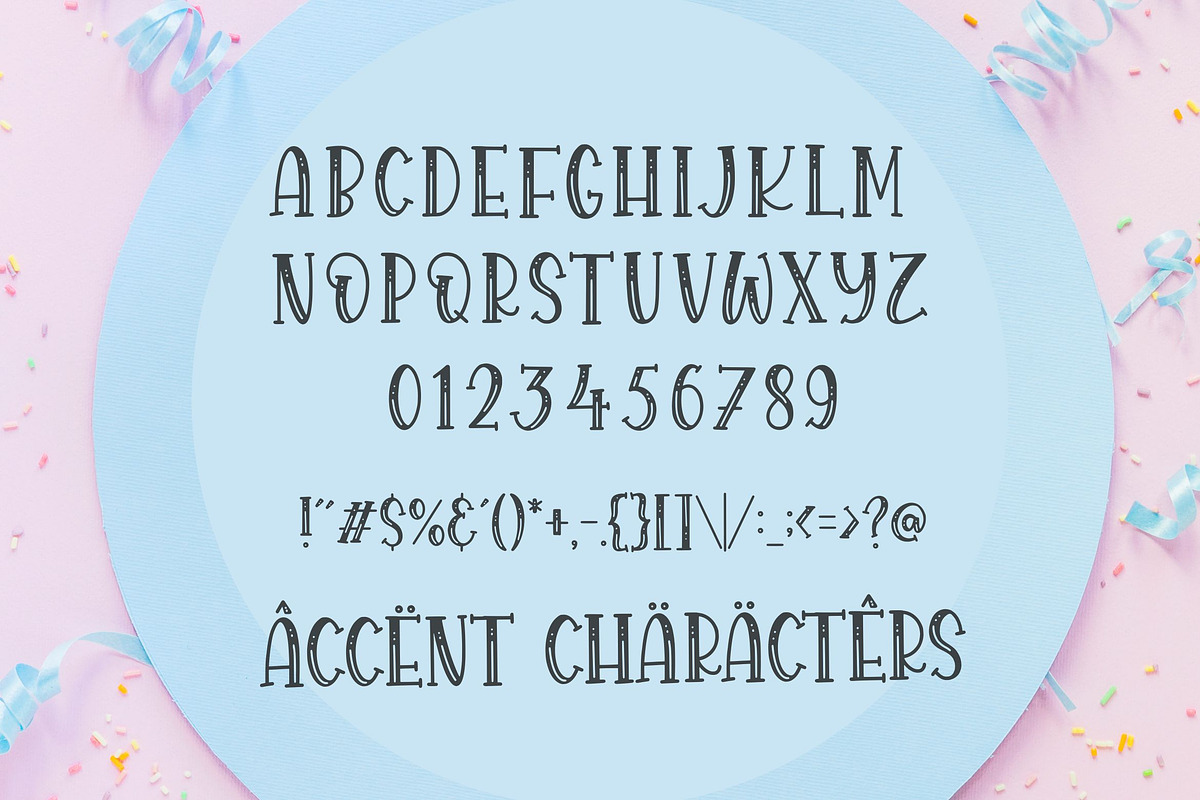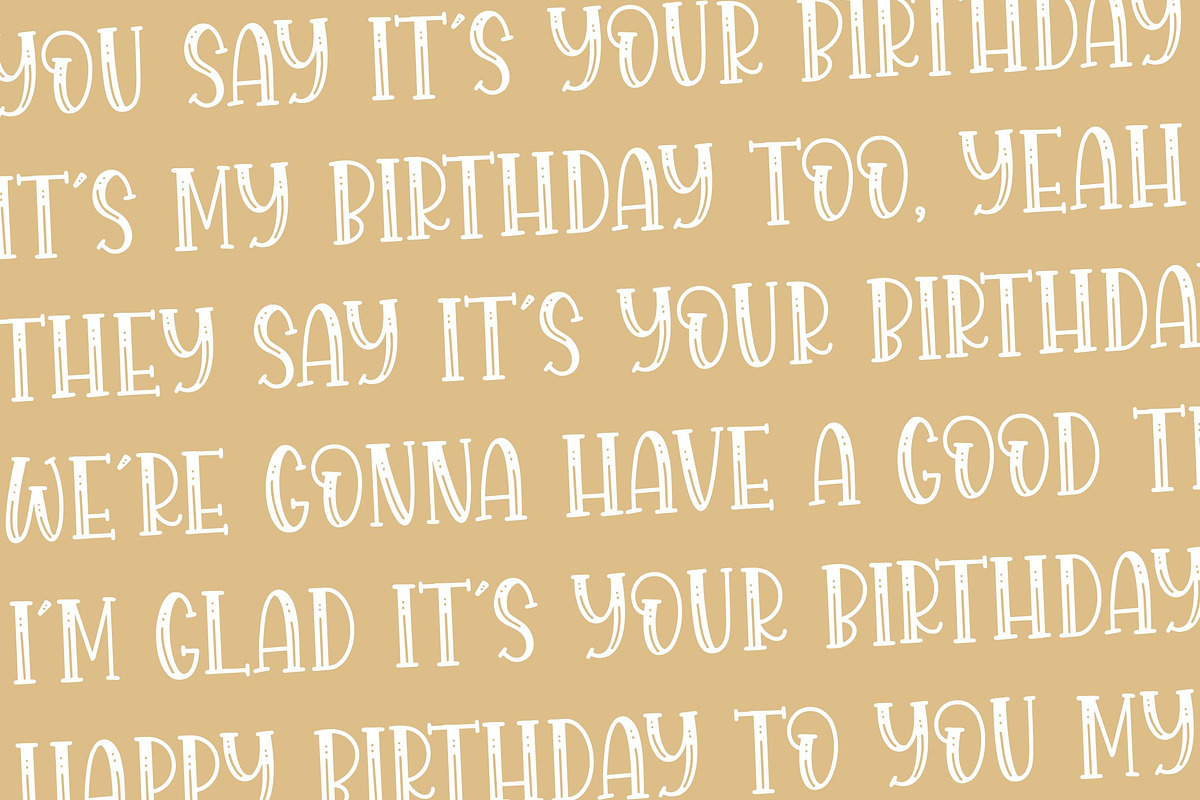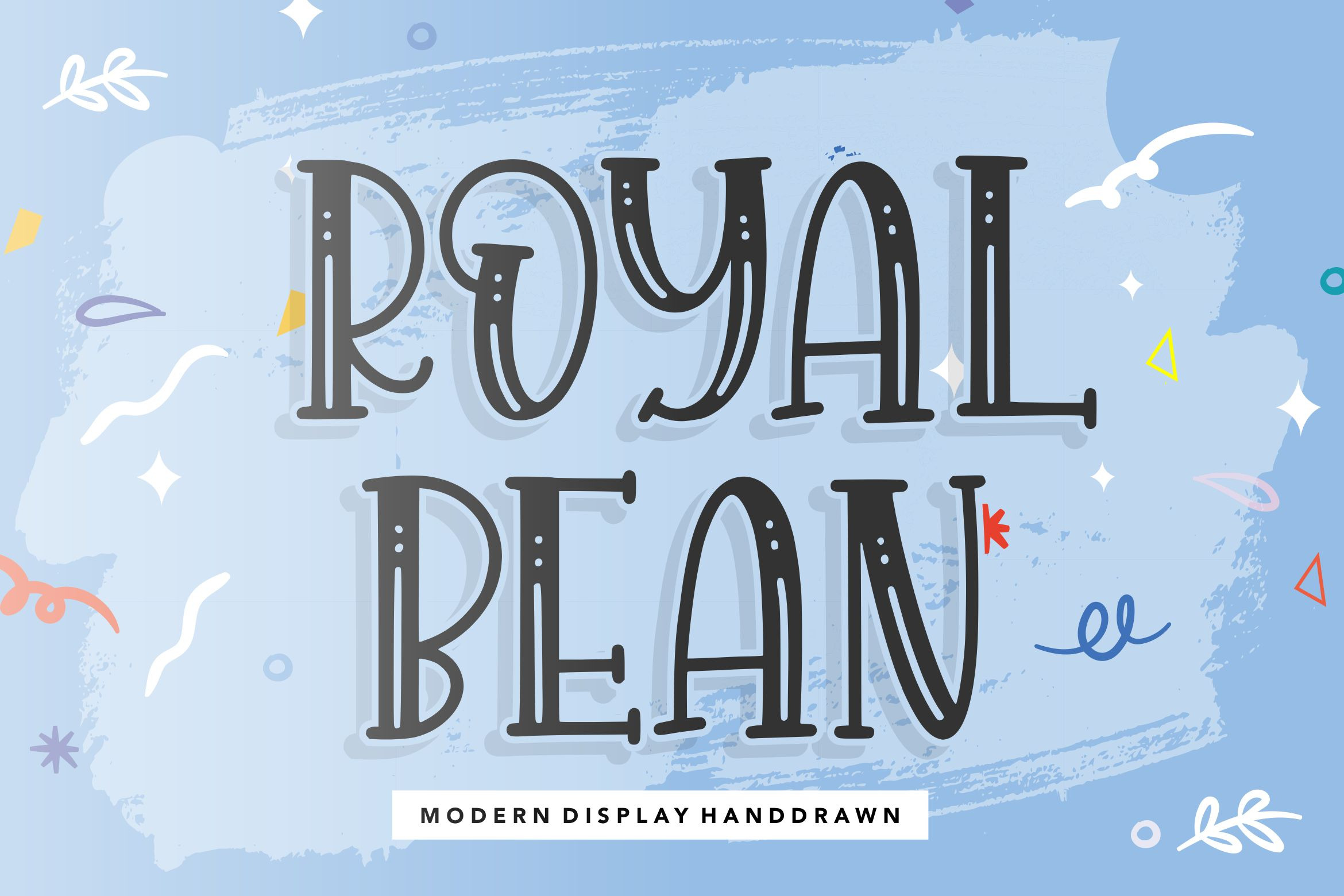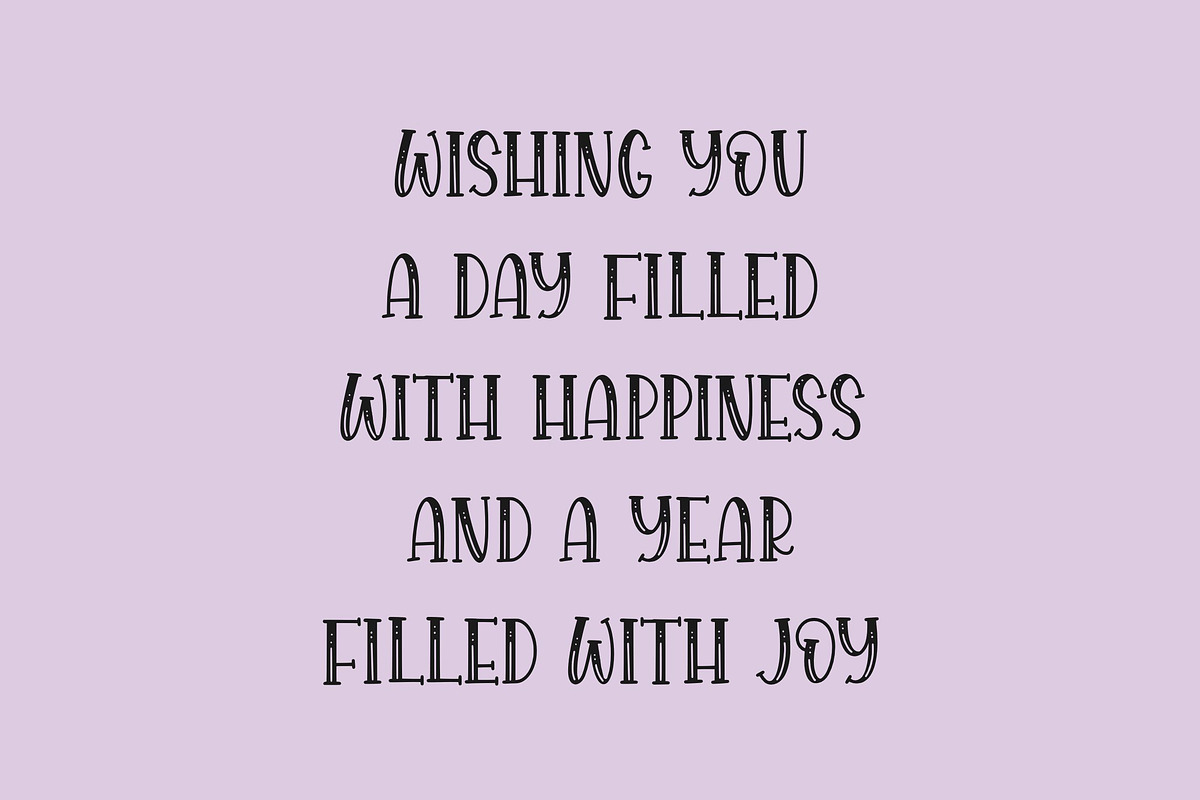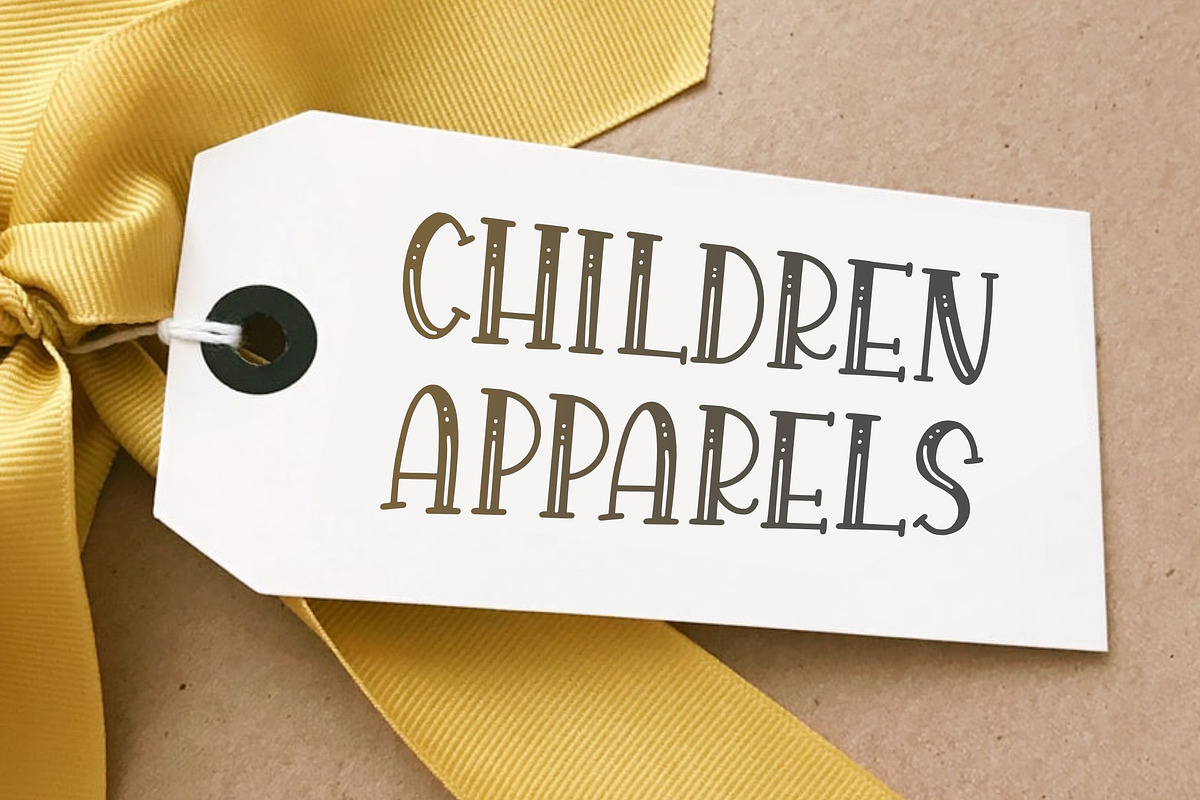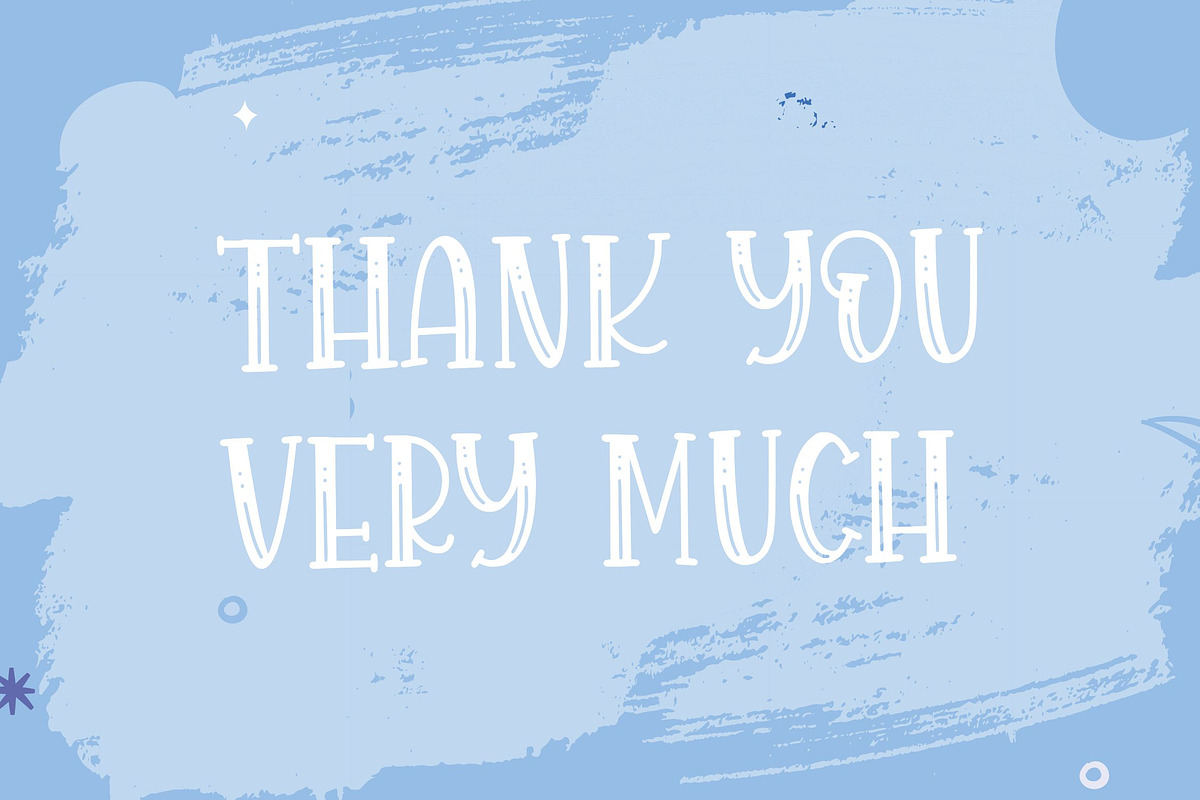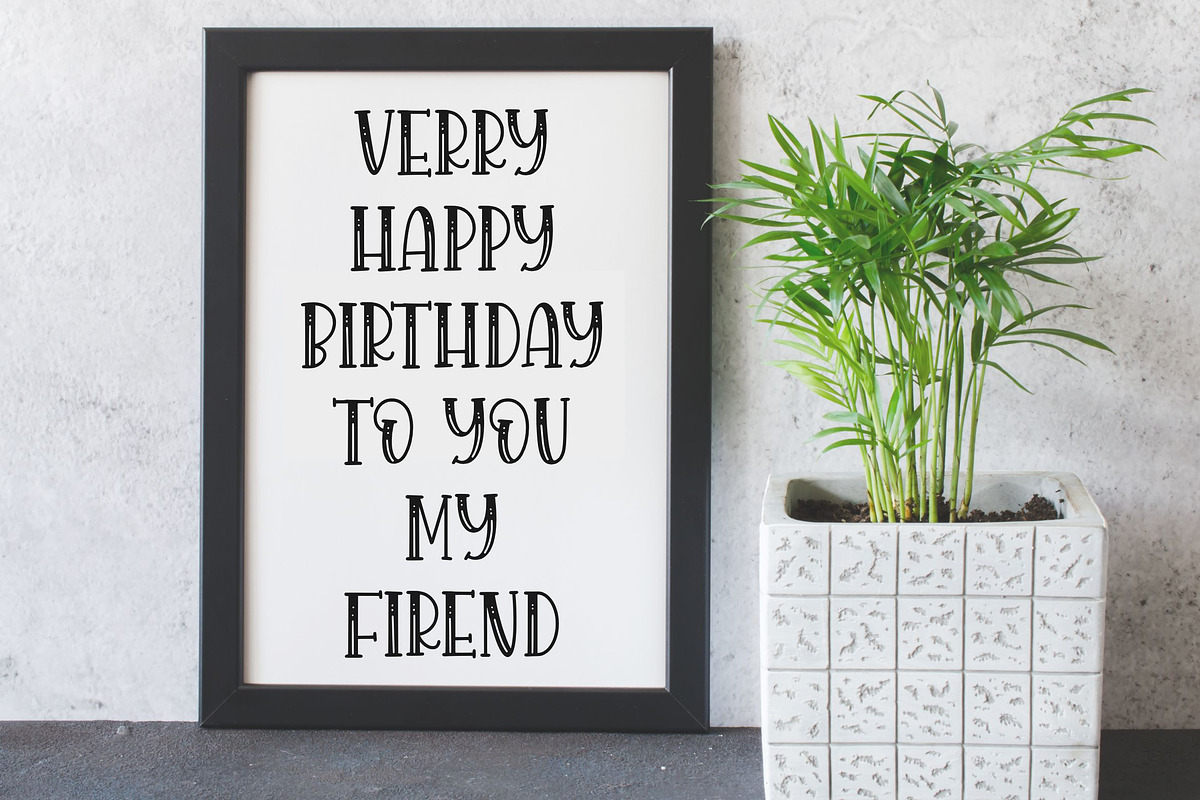
Royalbean - Display Handdrawn Font
Proudly Present, Royalbean Font
Royal Bean is a modern and friendly display font. Fall in love with it and bring your projects to the highest levels!
- also multilingual support